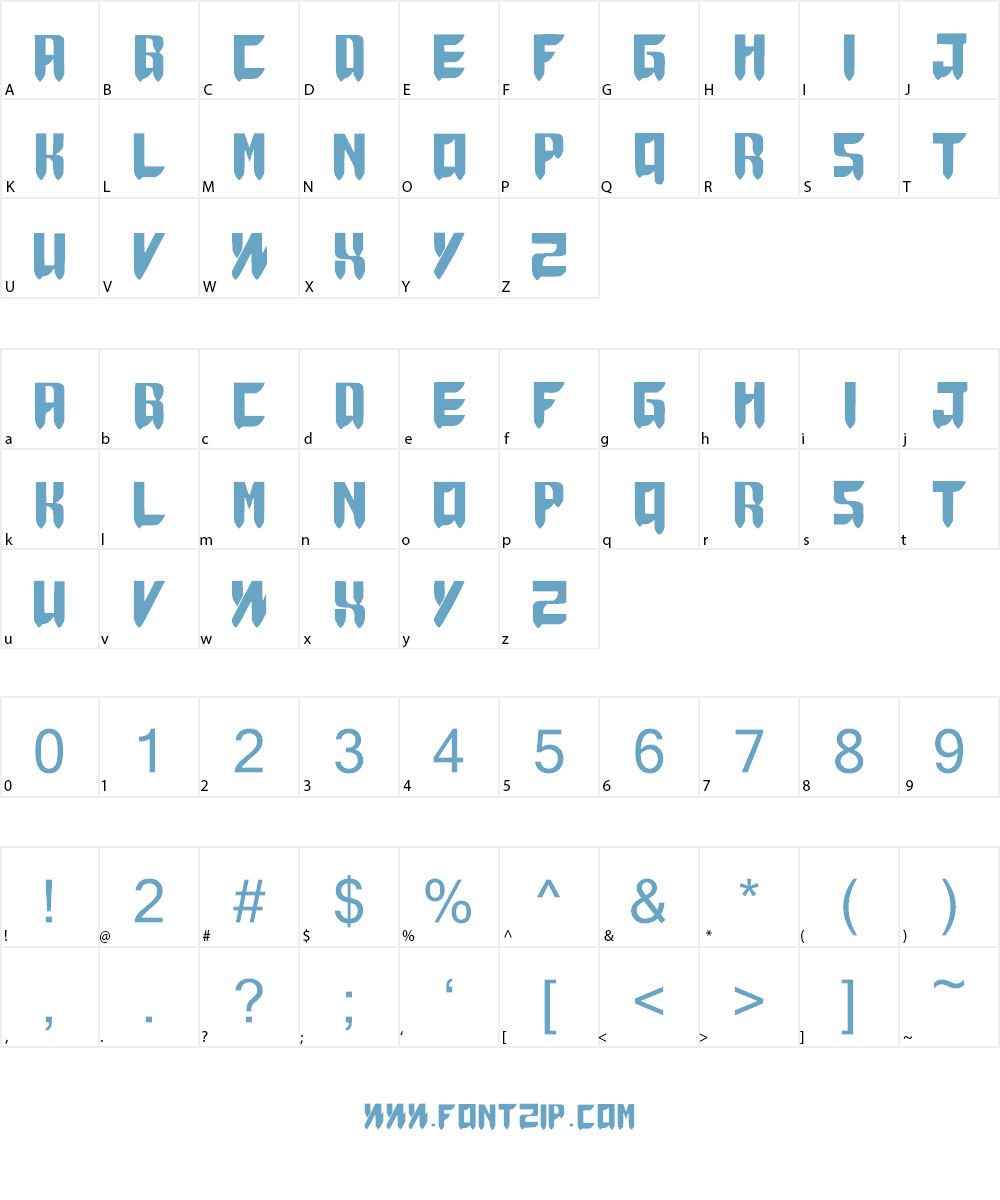
It's been very long time waiting to the original complete version of the font, but it seems the waiting is near to never appear. So I tried to develop this font based on the existing example. This is the first time I "create" font. So I apologize if there is lack on many aspect of the font